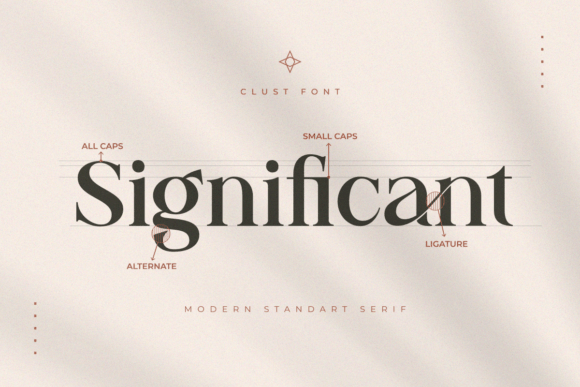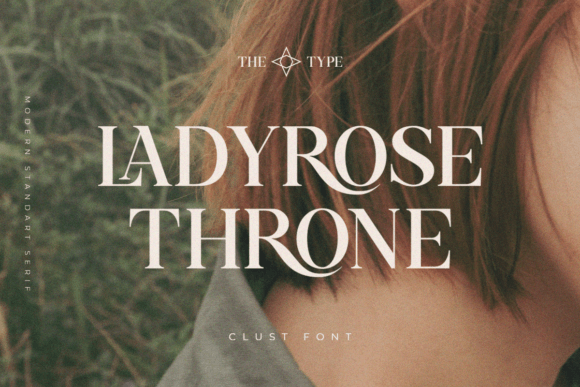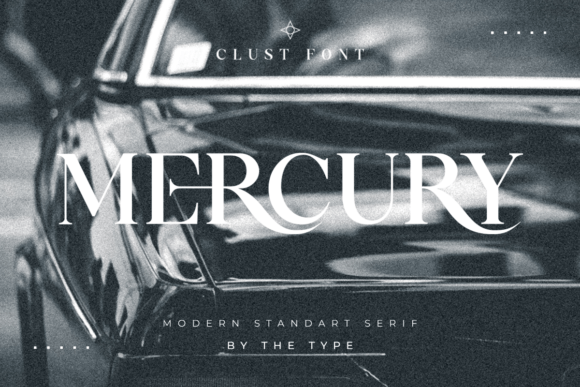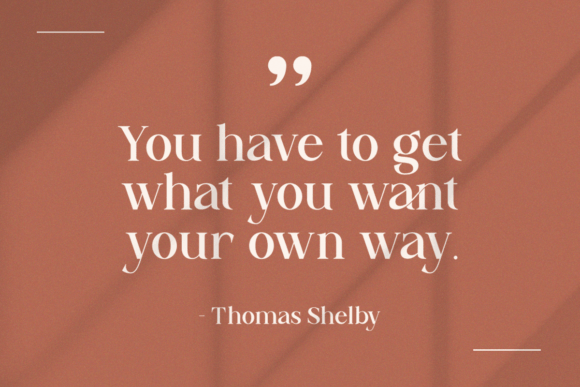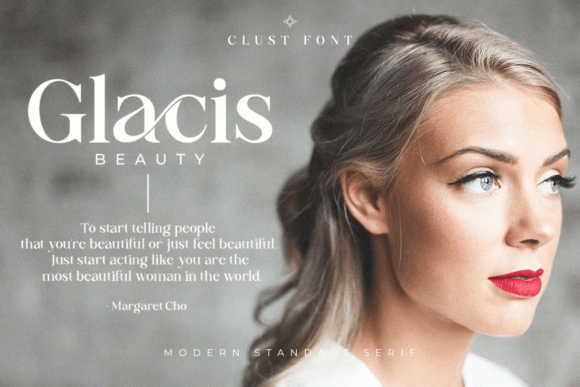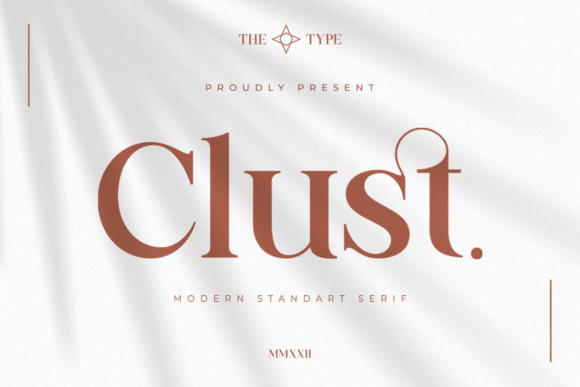
Introducing Clust Font: Elevate Your Designs with Elegance and Luxury
In the world of typography, a font can make or break a design. For designers and crafters seeking to add a touch of sophistication and luxury to their projects, Clust Font is an exceptional choice. This modern serif font is inspired by the essence of elegance and luxury, making it perfect for a wide range of applications.
The Classic yet Modern Appeal of Clust Font
At first glance, Clust Font may appear to be a classic, conservative serif font. Its traditional structure and precise lines make it an excellent choice for body text and lengthy content. However, what sets Clust Font apart is its ability to transform into a more expressive, playful, and modern font with the use of alternative substitutes and ligatures.
By experimenting with these features, designers can inject a unique personality into their work, elevating it from ordinary to extraordinary. Whether you’re working on a branding project, editorial design, or packaging, Clust Font offers the versatility to adapt to your creative vision.
One of the standout features of Clust Font is its PUA (Private Use Area) encoding. This means that accessing the font’s extensive range of glyphs and swashes is incredibly easy. Designers can effortlessly navigate the font’s library, selecting the perfect characters to enhance their work.
PUA encoding eliminates the need for complicated font editing or workarounds, allowing designers to focus on the creative process. With Clust Font, you can access:
• Stylish ligatures to add a touch of elegance
• Swashes to inject drama and flair
• Alternative characters to create visual interest
Clust Font’s versatility makes it suitable for a wide range of design projects, including:
• Branding and Logo Design: Create a lasting impression with a custom logo that exudes luxury and sophistication.
• Editorial Design: Elevate your publications with a font that commands attention and conveys elegance.
• Packaging Design: Stand out on store shelves with eye-catching packaging that showcases your brand’s personality.
• Web Design: Enhance your website’s typography, creating a seamless user experience that reflects your brand’s values.
Tips for Getting the Most Out of Clust Font
To maximize the potential of Clust Font, experiment with the following techniques:
• Mix and match: Combine Clust Font with other fonts to create a unique visual hierarchy.
• Play with ligatures: Use ligatures to add a touch of sophistication to your text.
• Adjust font sizes: Experiment with different font sizes to create visual interest and emphasis.
Clust Font is a game-changer for designers and crafters seeking to infuse their work with elegance and luxury. Its modern serif design, alternative substitutes, and ligatures make it an incredibly versatile font suitable for a wide range of applications. With PUA encoding, accessing the font’s extensive features is effortless, allowing designers to focus on the creative process.
Whether you’re working on a branding project, editorial design, or packaging, Clust Font is an exceptional choice. Experiment with its features, and discover the perfect blend of classic sophistication and modern flair to elevate your designs.